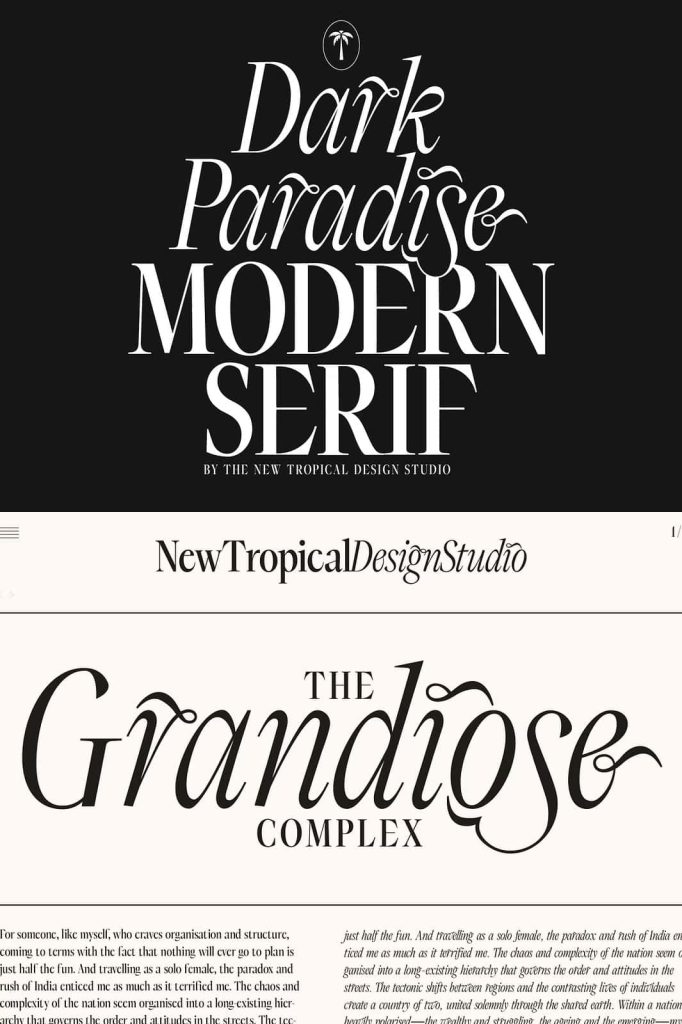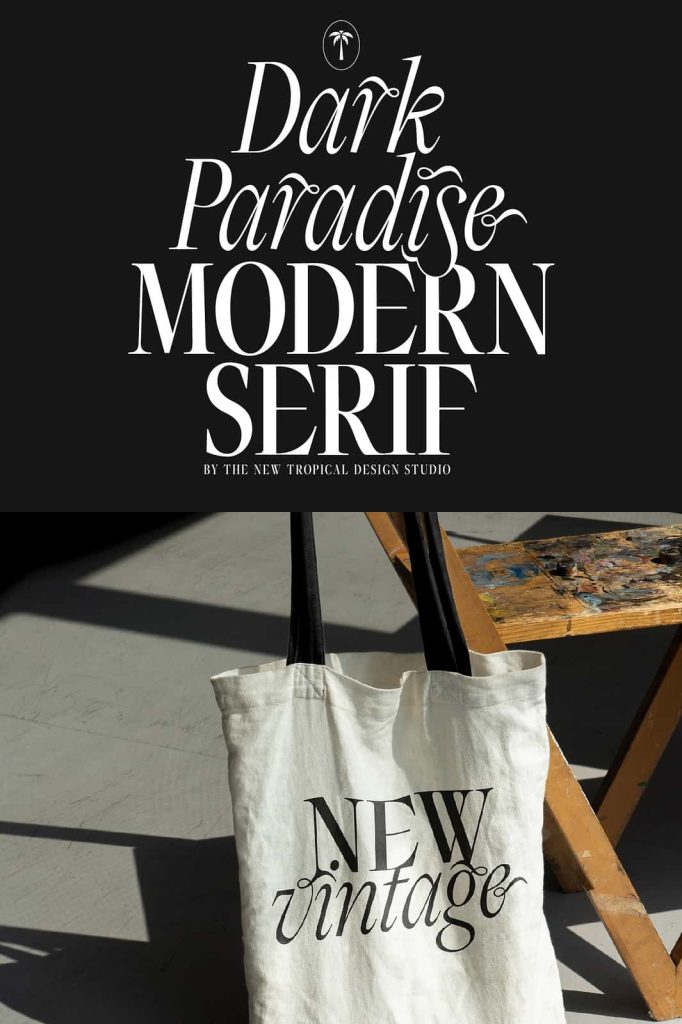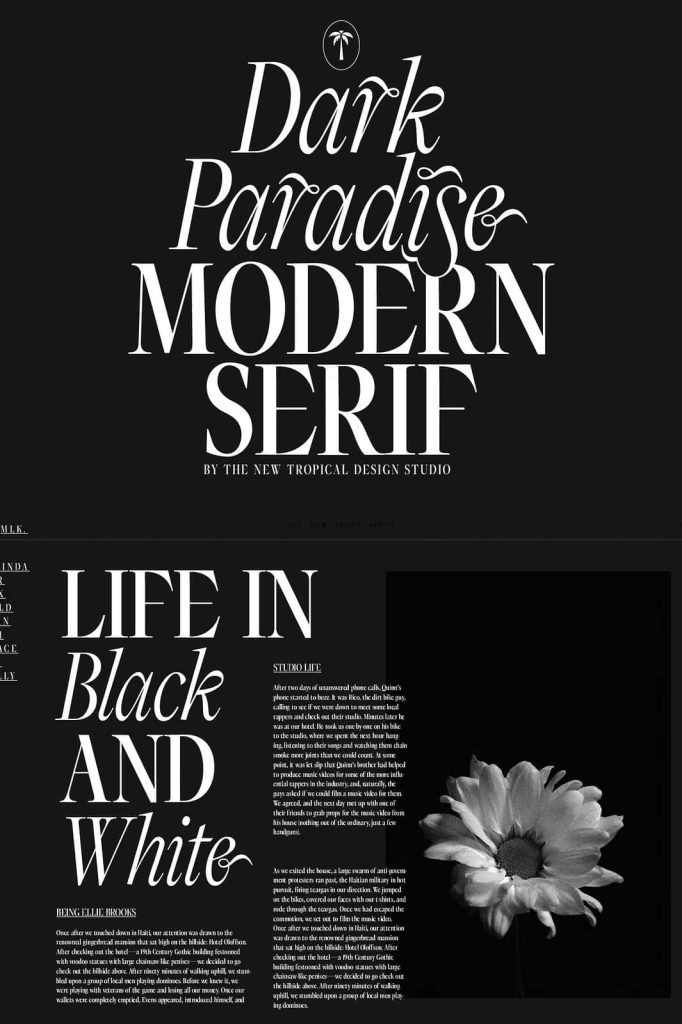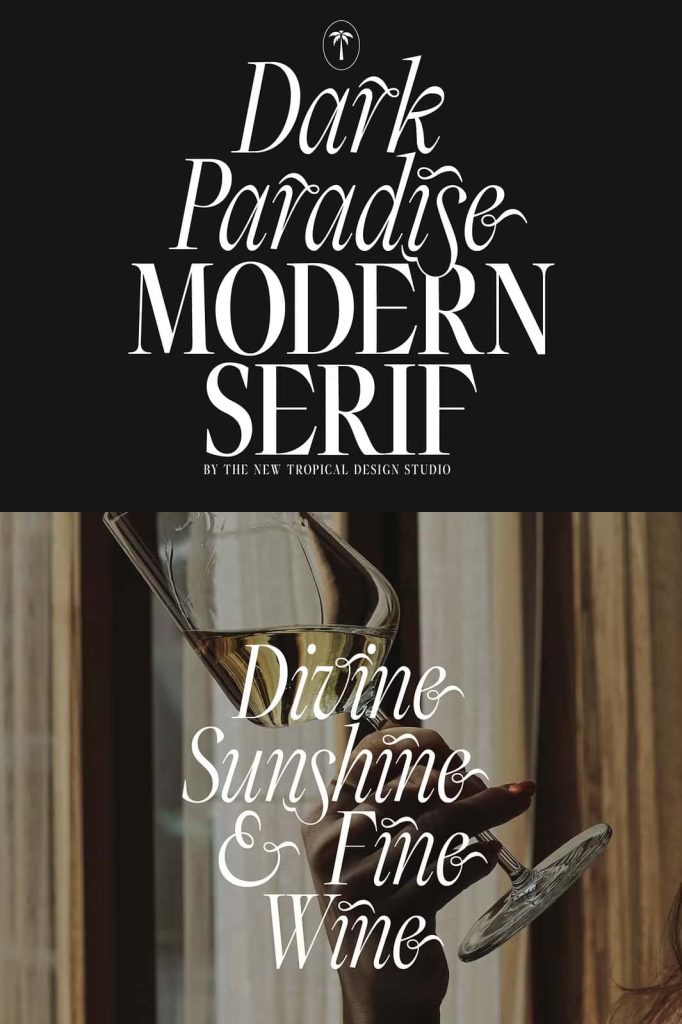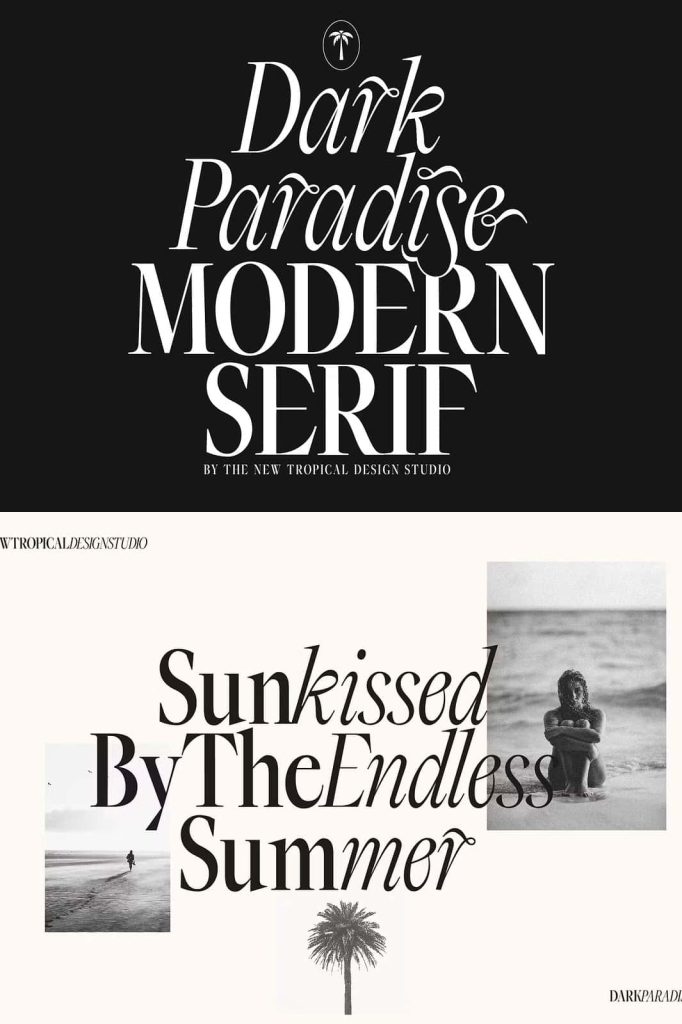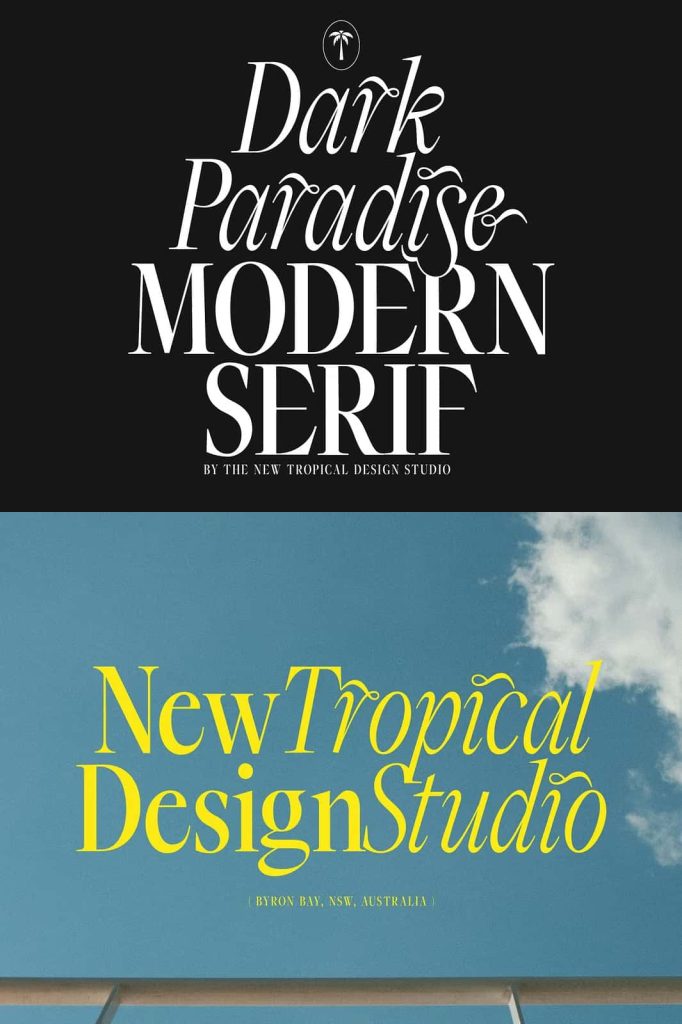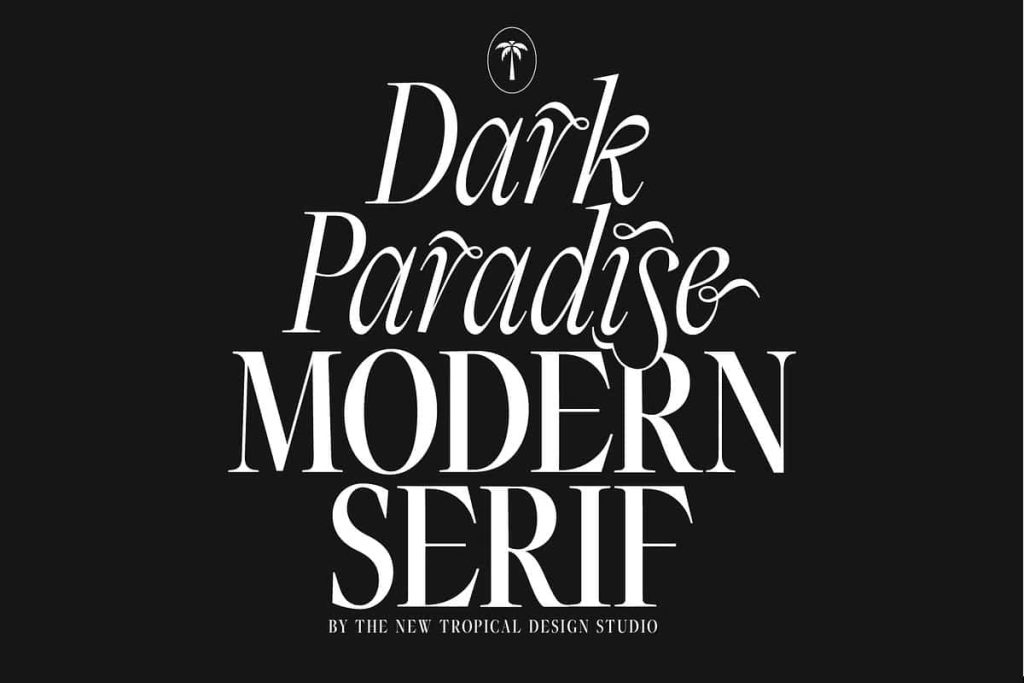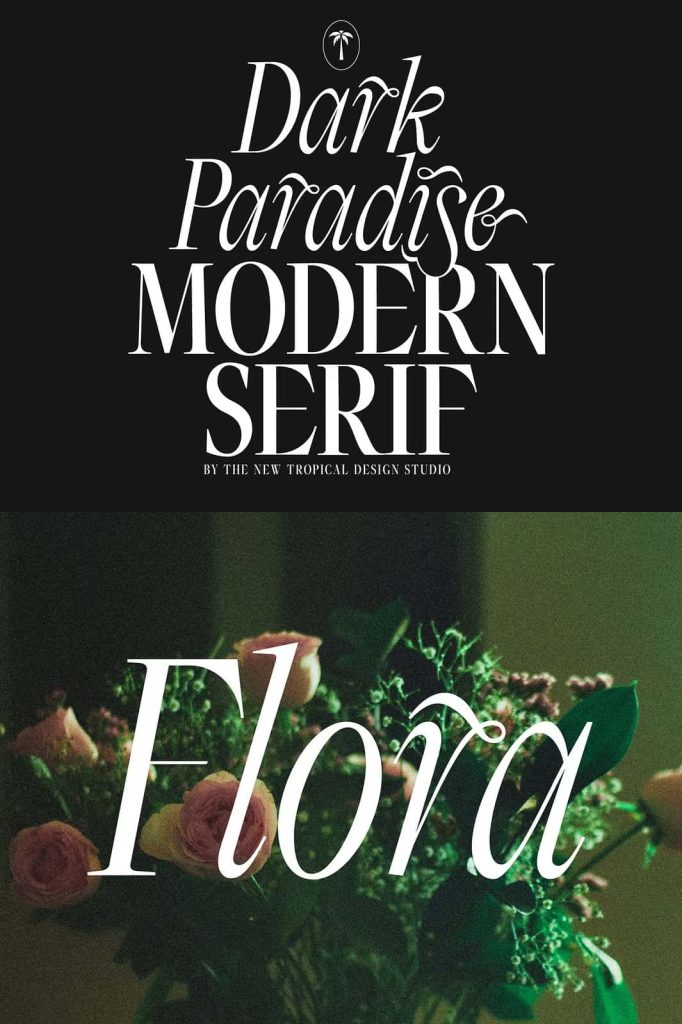
Dark Paradise – A Bold and Elegant Modern Serif Typeface
Dark Paradise is a striking modern serif typeface designed to combine bold structure with decorative elegance. This unique typeface brings together two distinct typographic personalities: a strong, edgy serif style and an ornate italic variation filled with expressive flourishes. The contrast between these styles creates a dramatic typographic experience that allows designers to build visually compelling layouts.
The primary serif characters present a confident and modern appearance. Their sharp edges, balanced proportions, and solid structure create typography that feels powerful and contemporary. In contrast, the italic style introduces elaborate curves and decorative alternates that add elegance and artistic flair. Together, these two styles form a beautiful typographic juxtaposition that allows designers to explore creative compositions.
Dark Paradise works perfectly for projects that require both strength and sophistication. Whether you design branding materials, editorial layouts, or high-end packaging, this modern serif typeface provides the flexibility needed to create unique and expressive typography.
A Modern Serif Typeface with Bold Personality
The main structure of Dark Paradise features a strong modern serif design. Each character uses clean lines and confident proportions that create a powerful typographic presence. These bold shapes make the font highly effective for display typography, where clear visual impact plays an essential role.
Unlike traditional serif fonts that rely heavily on classical forms, Dark Paradise embraces a modern aesthetic. The letterforms maintain the elegance of serif typography while introducing sharper details and contemporary styling. This balance helps the font feel timeless yet current, making it suitable for modern design trends.
Designers can use the upright serif style to build strong titles, brand names, and headlines that communicate confidence and clarity. The structure ensures excellent readability while still maintaining a distinctive visual identity.
Ornate Italic Style with Decorative Character
The italic version of Dark Paradise introduces a completely different typographic personality. While the upright characters appear bold and structured, the italic style offers elaborate decorative forms that bring elegance and creativity to the design.
The ornate italic characters include flowing curves, extended strokes, and artistic flourishes that enhance the visual richness of the typeface. These decorative details allow designers to create typography that feels luxurious and expressive.
This contrast between strong serif letters and ornamental italic forms creates a powerful design tool. Designers can combine both styles within the same layout to produce dynamic compositions that attract attention and communicate sophistication.
Key Features of Dark Paradise
- Modern serif typeface with bold structure
- Ornate italic style with decorative flourishes
- Elegant contrast between upright and italic forms
- Multiple alternate characters for creative typography
- Perfect for display and branding design
- Balanced proportions for professional layouts
These features give designers the flexibility to experiment with typography while maintaining a cohesive visual identity.
Create Unique Designs with Alternate Characters
Dark Paradise includes numerous alternate characters within the ornate italic style. These alternates allow designers to customize their typography and create distinctive visual compositions. Instead of repeating the same letter shapes throughout a design, alternate characters introduce variation and artistic detail.
Using alternates helps typography feel more handcrafted and less mechanical. Designers can choose different stylistic variations of letters to create unique wordmarks, headlines, or decorative text elements.
This flexibility is especially valuable for branding projects where originality plays a major role. By experimenting with alternates, designers can craft custom-looking typography without creating entirely new lettering from scratch.
Perfect for Branding and Logo Design
Dark Paradise performs exceptionally well in brand identity design. The strong serif structure provides the foundation for professional and memorable logos, while the ornate italic variations allow designers to add decorative personality.
Brands that want to communicate elegance, creativity, and sophistication will benefit from this combination of strength and ornamentation. Luxury brands, fashion labels, beauty products, and boutique businesses often use expressive serif typography to establish distinctive visual identities.
Designers can use the bold serif style for the main brand name while incorporating the ornate italic characters as accents or supporting typography. This approach creates visually balanced logos that feel both modern and artistic.
With its decorative alternates and expressive character, Dark Paradise empowers designers to explore creative typography in branding, editorial design, packaging, and display layouts. If you want to create typography that feels bold, elegant, and visually distinctive, this modern serif typeface offers the perfect combination of structure and artistic flair.